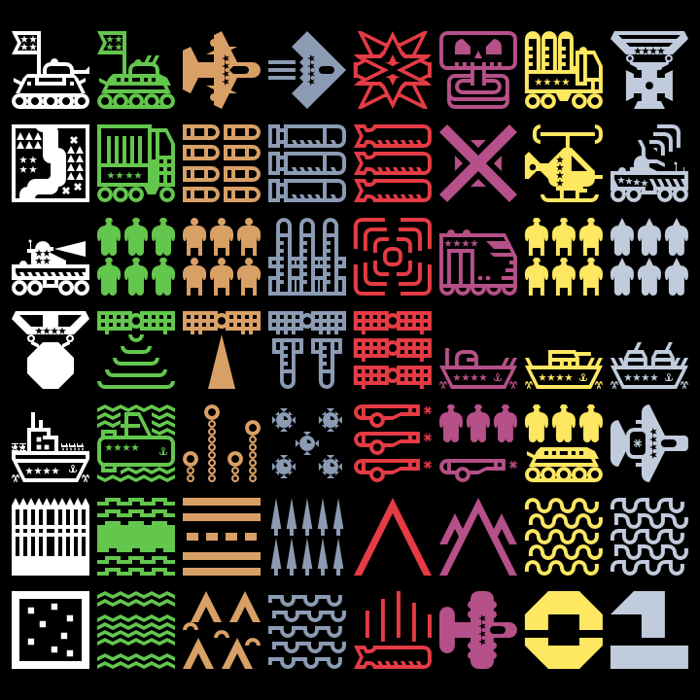
Militaricons Font
Military and wargame related icons. These are good for making board games or diagrams! The 4 stars are meant to represent a player number. Erase the stars to make pieces for Players 1, 2, and 3.